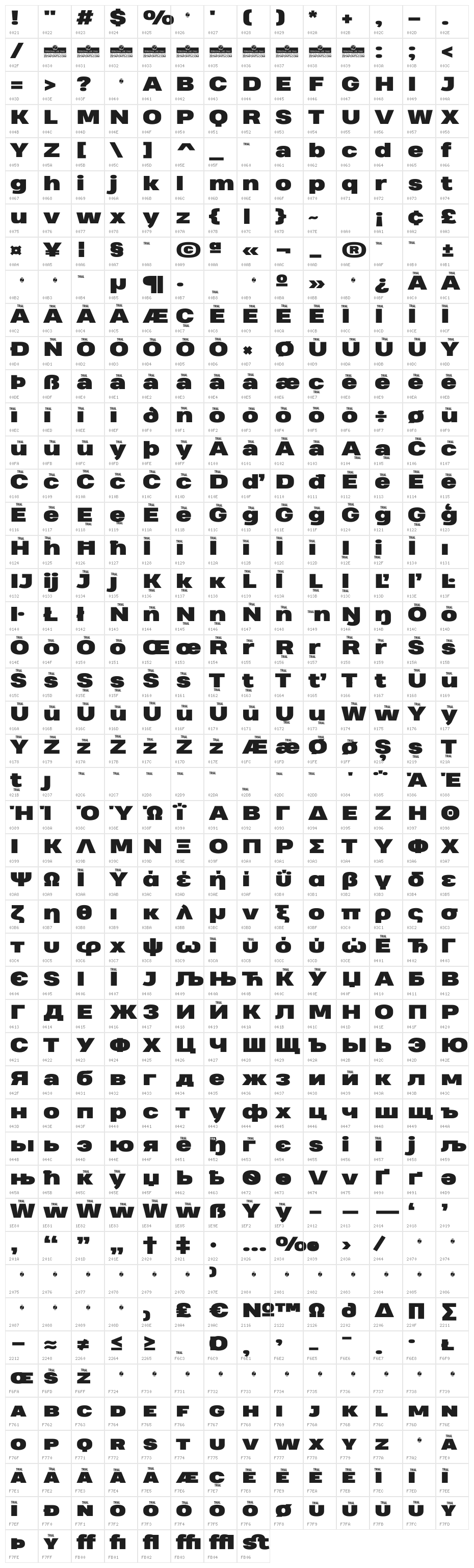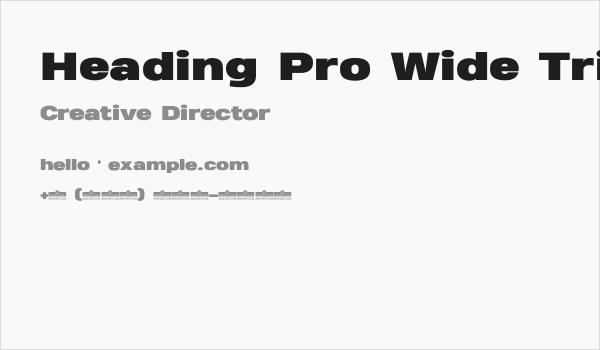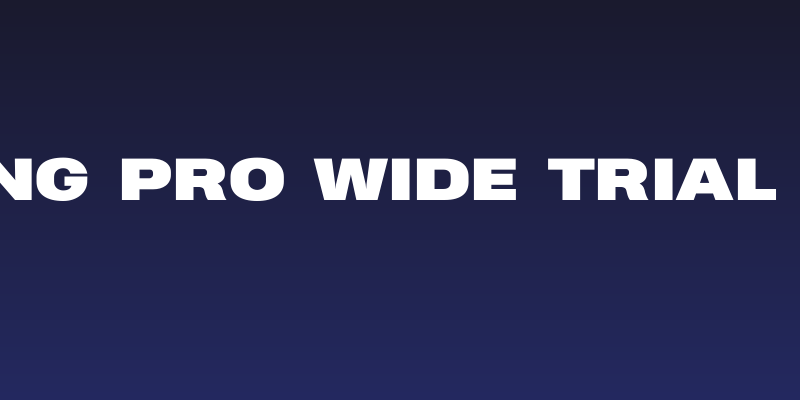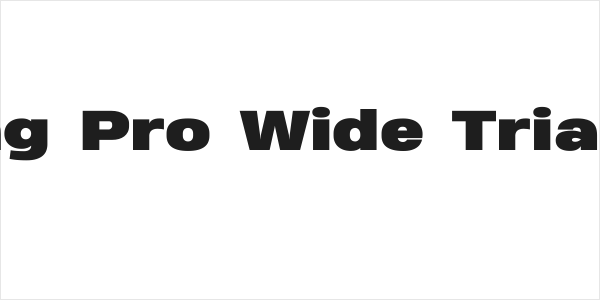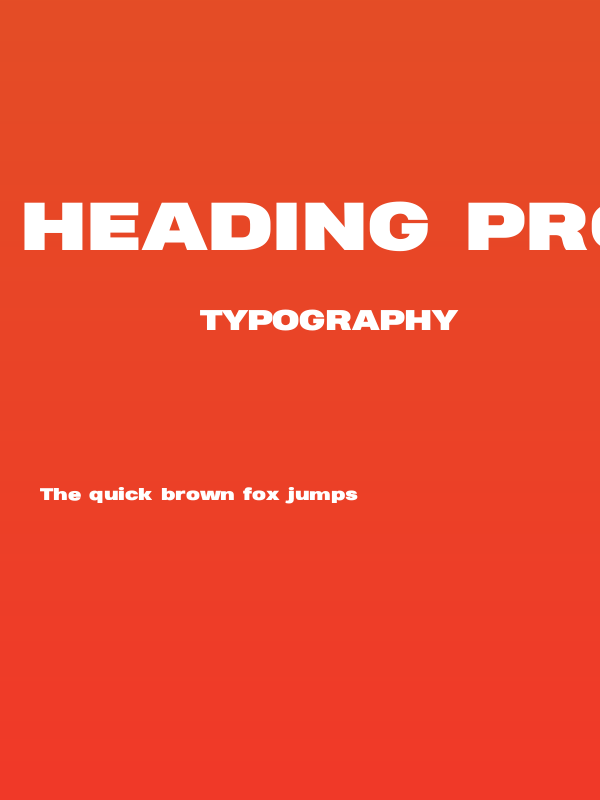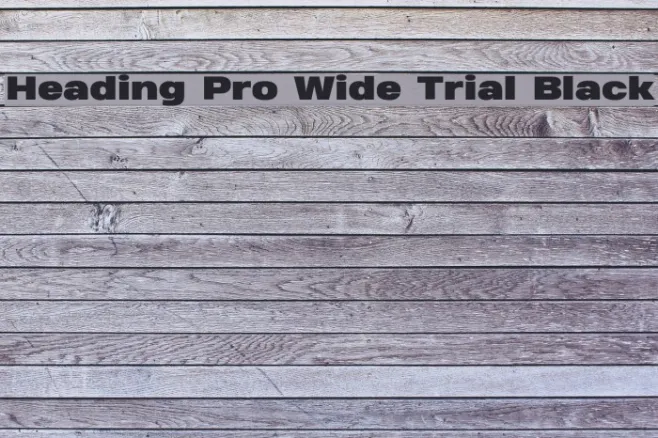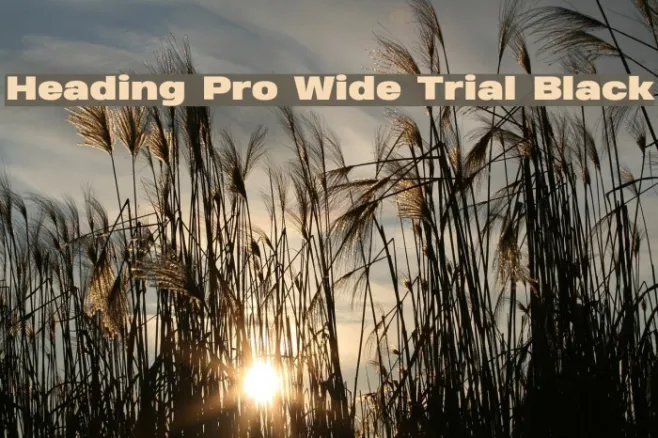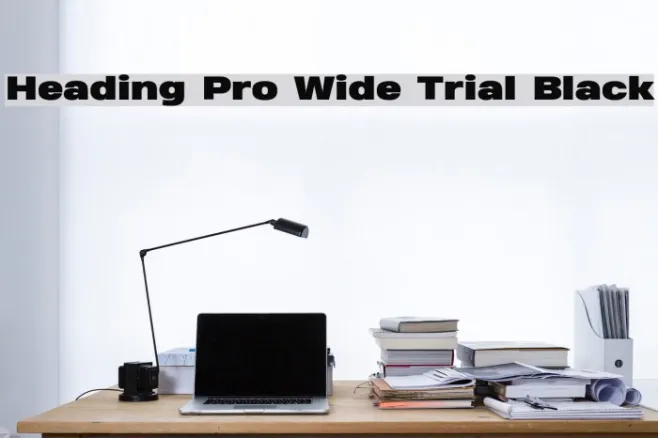
Heading Pro Wide Trial Black Font
Heading Pro Wide Trial Black Description
This font exhibits a bold and impactful design, characterized by its wide and heavy strokes. The uppercase and lowercase letters maintain a consistent thickness, contributing to a strong visual presence. The characters are designed with a modern aesthetic, featuring clean lines and minimal decorative elements. The font's wide stance enhances readability, making it suitable for attention-grabbing headlines and titles. The numerals and special characters are crafted with the same boldness, ensuring uniformity across all text elements. This typeface is ideal for projects that require a commanding and assertive look.
| Proposed Projects | Ideal for headlines, posters, branding, and advertising materials where a strong visual impact is desired. |